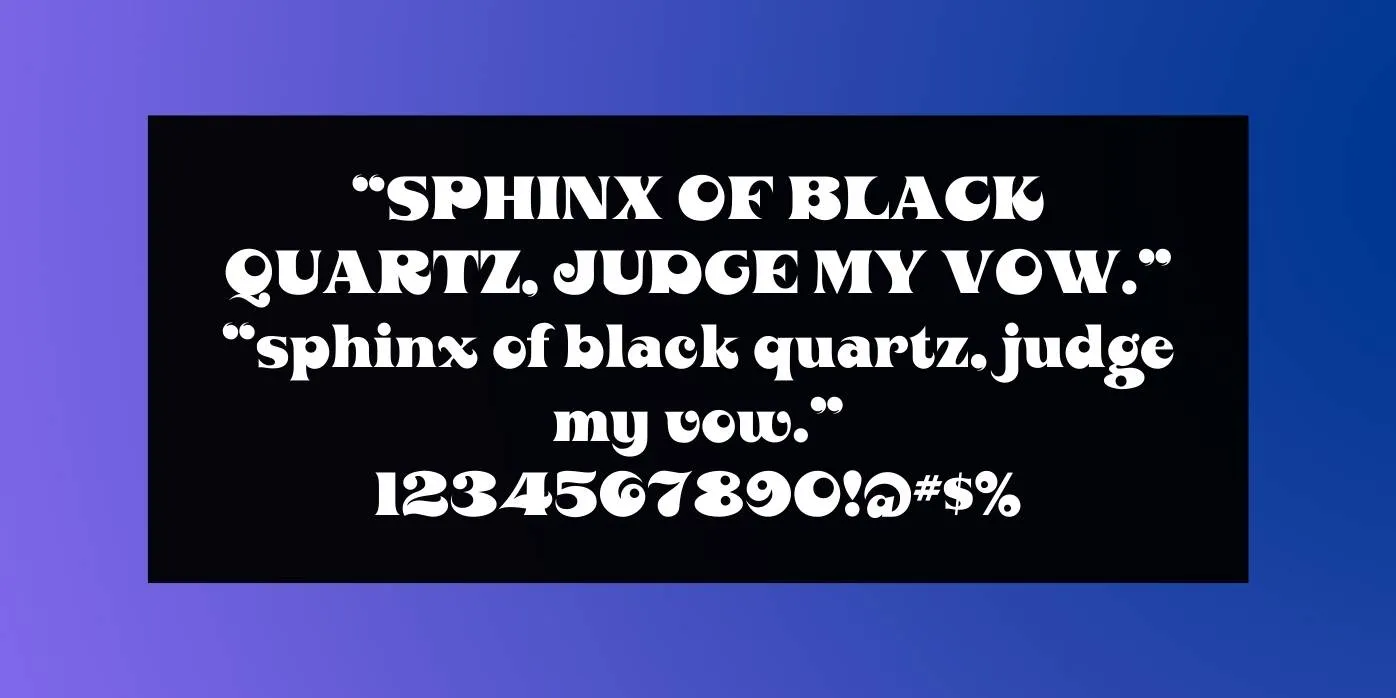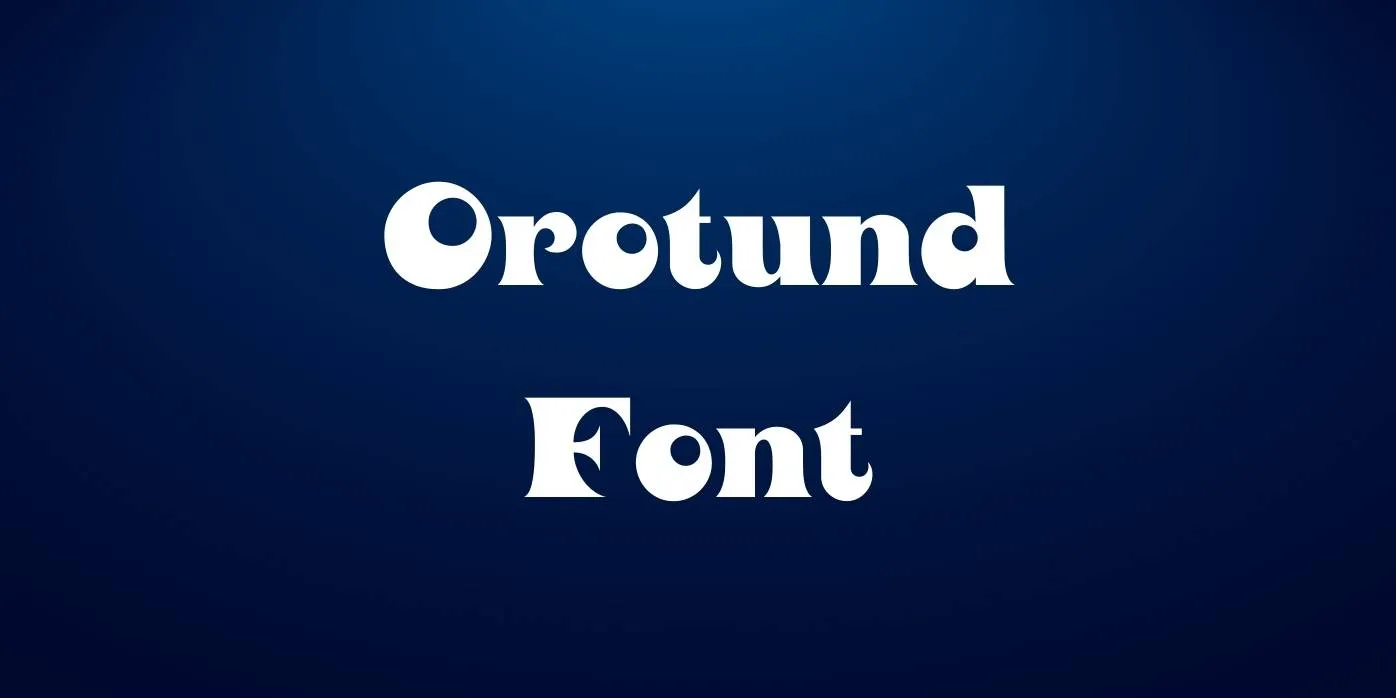
Orotund Font
Orotund Font is a fancy typeface that was designed by Adrian Frutiger in 1957. The name “Orotund” is derived from the Latin word for “round,” and the font was created with roundness and simplicity in mind. This Font is one of Frutiger’s most popular typefaces, and it has been used extensively in both print and digital media. This Font was designed to be highly readable, and it features a large x-height and wide letterforms.
The typeface is also very legible in small sizes, making it an ideal choice for body text. This Font includes several different weights, from light to black, and it also has a condensed version for tighter settings. While this font is not strictly fancy, it does share many characteristics with these typefaces. The texturing of this typeface is great to work with the pairing of favorit font.
The simple, rounded letterforms give the typeface a clean and modern look, while the large x-height makes it highly readable.